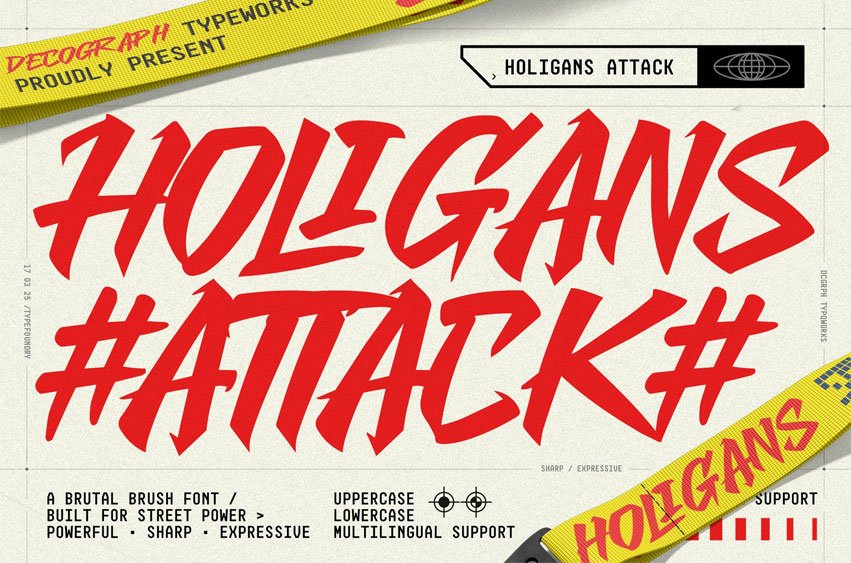
Holigans Attack Font
Holigans Attack Font Sharp Brush Display Font is a brutal handwritten typeface crafted with sharp strokes and aggressive brush movement. Its angular forms and pointed edges create a powerful visual rhythm that feels bold, energetic, and unapologetically expressive. The raw brush texture adds a strong street-inspired character while keeping high readability for display use.
Designed for impactful and high-energy visuals, this font is perfect for projects that demand attention and attitude. Whether used for posters, music artwork, or social media graphics, Holigans Attack delivers a striking urban aesthetic with sharp, powerful presence.
Font Features: Uppercase Letters Lowercase Letters Numbers And Punctuation Multilingual Support Sharp Brush Texture Bold Display Character